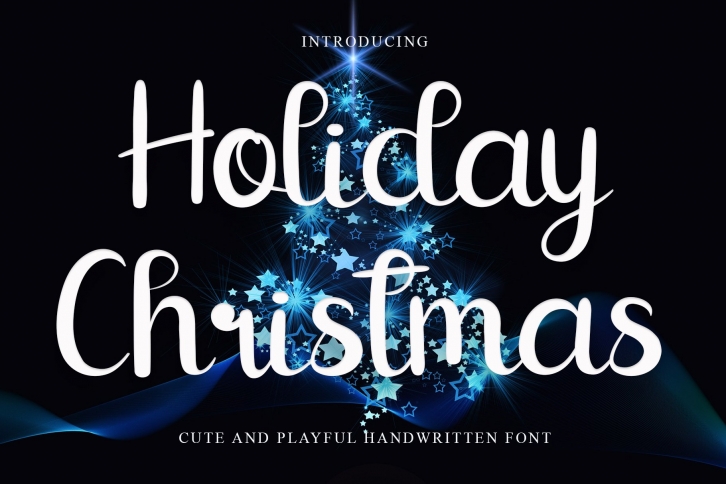
Holiday Christmas is a great font that was designed by Giart Studios. Imagine the amount of combinations you can create using this font! The archive is 3.47 MB and it was released on March 3, 2022. Holiday Christmas looks beautiful on wedding invitations, greeting cards, logos, posters, labels, t-shirt designs, logos, business cards and is perfect for use in ink or watercolor works, fashion, magazines, packaging and food menus, children's books and more!